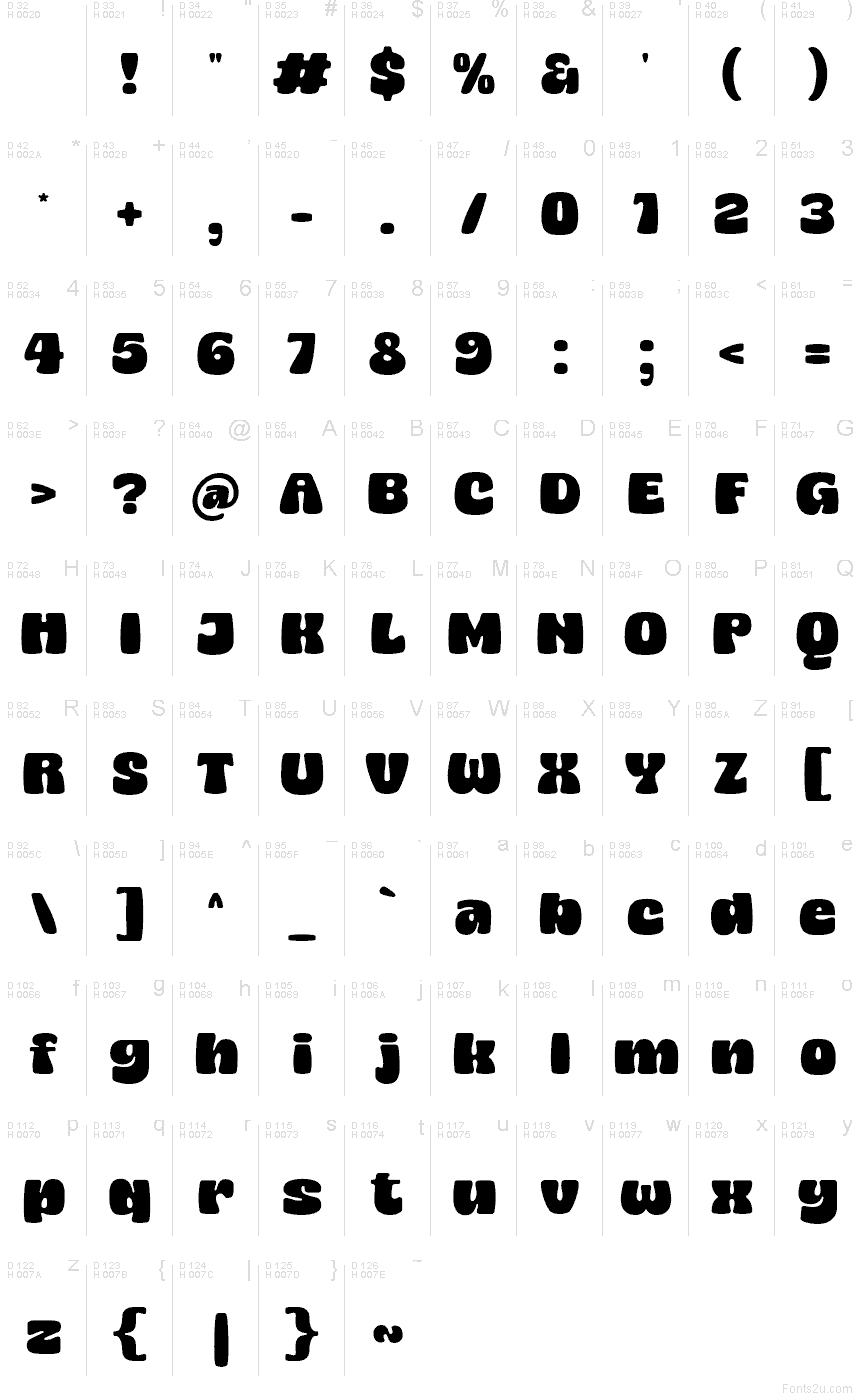
Chunky Vibes
Chunky Vibes font by Burhan Afif of HansCo Studio is a free groovy font with big, pillowy curves and a soft bounce that feels like ink pressed into rubber. The letters sit wide and confident, with rounded corners and chunky weight that reads loud even at a glance—playful, friendly, and a little retro without trying too hard.
Using Chunky Vibes, you’ll get instant personality on poster headlines, album art, sticker packs, snack packaging, kids’ party invites, YouTube thumbnails, and cheerful merch like tees or totes. This free font also shines on social graphics where you need warmth and punch in just a few words. Pair it with a clean, narrow sans for supporting copy, and give it breathing room so the squishy shapes stay crisp.